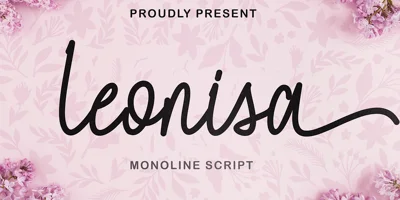
Leonisa Font
The Leonisa Font excels in various design applications including elegant feminine fashion branding, sophisticated women's lingerie marketing, graceful beauty product packaging, refined intimate apparel communications, luxurious spa signage, delicate jewelry brand identities, romantic wedding boutique materials, feminine wellness promotions, elegant cosmetics labeling, and distinguished women's lifestyle projects that demand feminine sophistication and intimate elegance.
What makes the Leonisa Font exciting is its exquisite embodiment of feminine grace and intimate sophistication through letterforms that capture the essence of delicate beauty and confident femininity. This typeface demonstrates exceptional refinement through carefully crafted characters that suggest the soft curves of feminine silhouettes, the delicate strength of confident women, and the timeless appeal of elegant intimacy that celebrates feminine beauty. The font's intimate personality makes it perfect for women's fashion brands and feminine lifestyle companies seeking to communicate elegance, confidence, and the kind of sophisticated femininity that empowers women through typography that literally embraces feminine grace with intimate sophistication.
The Leonisa Font family typically includes graceful weight variations that enhance the feminine aesthetic, featuring flowing italic styles with delicate flourishes and refined decorative elements. These family options often include elegant alternates with enhanced feminine characteristics, sophisticated ligatures, and intimate ornaments that provide designers with comprehensive tools for creating authentically feminine typography that celebrates women's beauty while maintaining contemporary design appeal and empowering sophistication.
Fashion industry professionals and feminine lifestyle brands consistently select Leonisa Font for projects requiring typography that communicates feminine sophistication and intimate elegance. This typeface delivers exceptional performance in women's fashion marketing, beauty branding, and feminine communications where establishing grace and celebrating confident femininity is essential for connecting with sophisticated female audiences. The font's elegant character makes it particularly effective for lingerie and beauty applications. Download Leonisa Font today to access this sophisticated typeface that transforms feminine communications with its intimate elegance and graceful sophistication, creating compelling beauty experiences that honor the strength and grace of feminine beauty while celebrating the confident sophistication that defines truly empowered feminine expression.